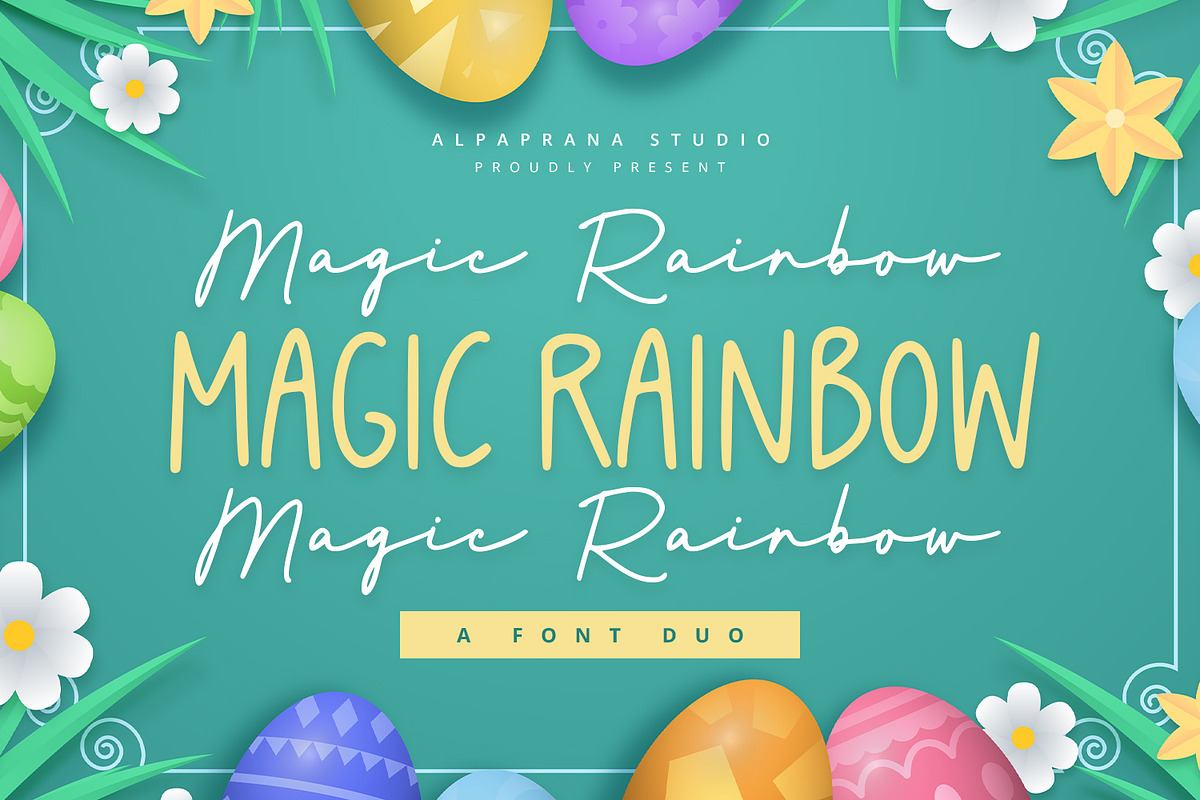
Magic Rainbow - Font Duo Free Download is a playful and vibrant typeface combination that pairs a bold sans-serif with a whimsical, handwritten script. Perfect for fun, colorful designs, this font duo is ideal for children’s branding, party invitations, social media graphics, and any project that needs a joyful, energetic flair.
Magic Rainbow - Font Duo Free Download offers the perfect balance of structure and flow, making it versatile for a wide range of creative projects. Whether you're designing a cheerful logo, creating dynamic posters, or adding a pop of color to digital content, this font duo brings a playful and colorful touch to your work. Download it today and let your designs shine with the vibrant spirit of Magic Rainbow!